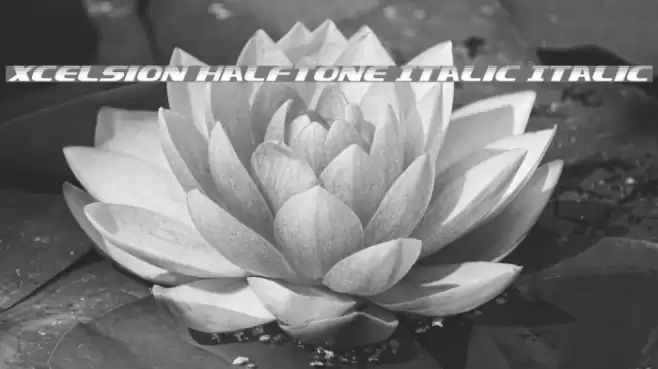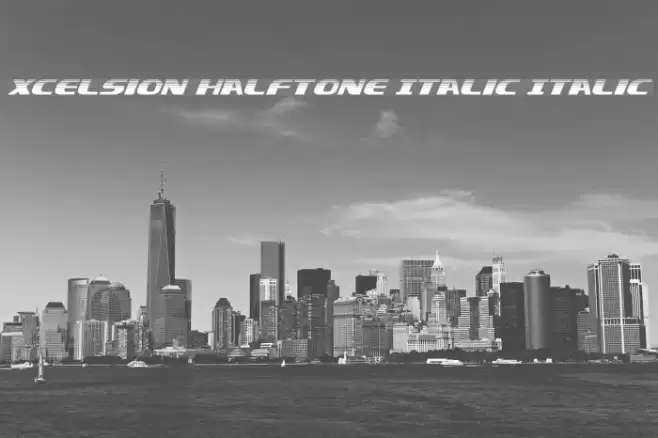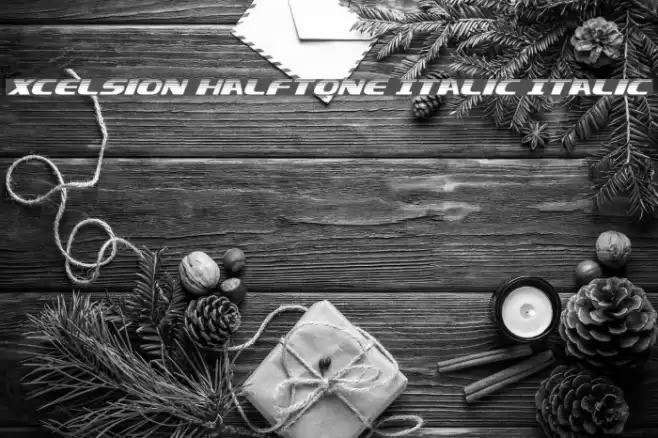
Xcelsion Halftone Italic Italic Font
Xcelsion Halftone Italic Italic Description
This font features a dynamic and futuristic design with a halftone effect that gives it a sense of motion and speed. The italicized letters are bold and angular, with a distinctive slanted orientation that enhances the impression of forward movement. The halftone pattern is composed of horizontal lines that create a gradient effect, adding depth and texture to each character. This style is particularly eye-catching and suitable for projects that require a modern and energetic look. The characters are well-defined, with a consistent stroke width that maintains readability while providing a unique visual appeal.
A bold, italicized font with a halftone effect, exuding speed and modernity from Uncategorized fonts.
- Proposed Projects: Ideal for sports branding, automotive advertisements, tech-related designs, and dynamic posters.